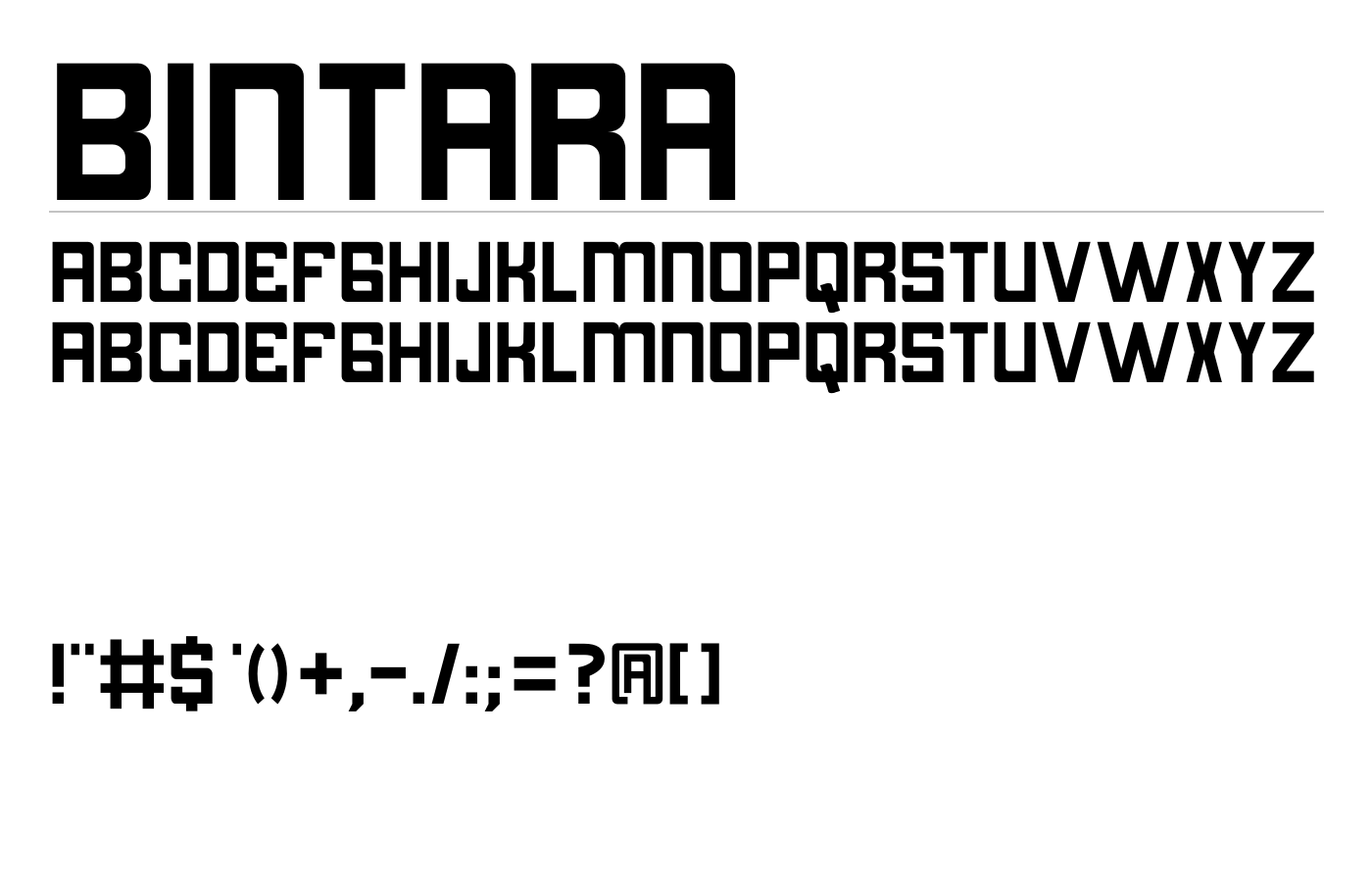
Bintara is a bold, geometric sans serif font characterized by its strong, blocky letterforms and uniform stroke widths, giving it a modern and industrial feel. Its uppercase-only design with squared shapes and tight spacing makes it ideal for impactful headlines, logos, and branding that require a confident, contemporary look. This font works well where readability and a sleek, assertive style are essential, especially in tech, sports, or urban-themed projects.
Bintara Font